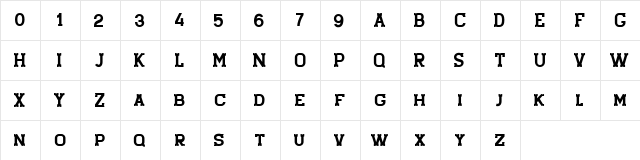
Staincool Base Regular Font Preview
Staincool Base Regular
Staincool Base Regular Font Details
| Foundry | Lukman Hidayat "Viaction Type Co" |
| Designer | Lukman Hidayat "Viaction Type Co" |
Design Context for Staincool Base Typeface
Staincool Base offers clean, dependable letterforms without strong stylistic allegiance, making it a practical choice for designers who need flexibility.